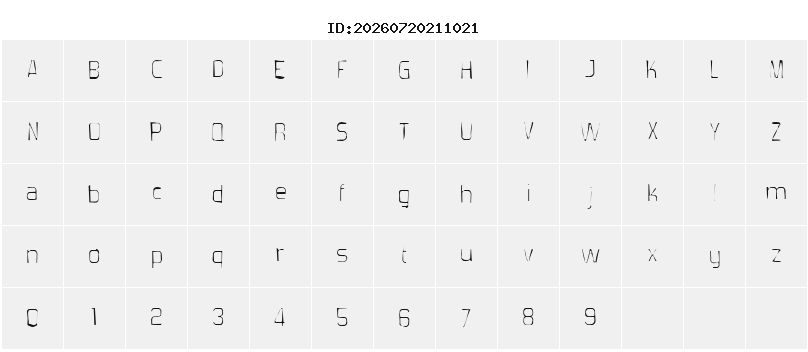
• Font Name: Forgotten Futurist Gaunt
• Designer: Ray Larabie
Forgotten Futurist Gaunt.ttf is a modern, elegant sans-serif font designed for ultimate readability and visual harmony. Perfect for branding, headlines, web design, and print materials.